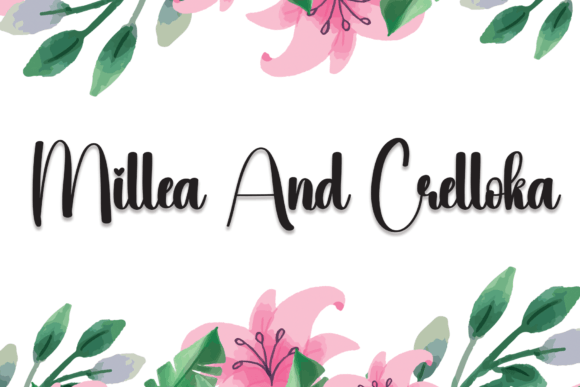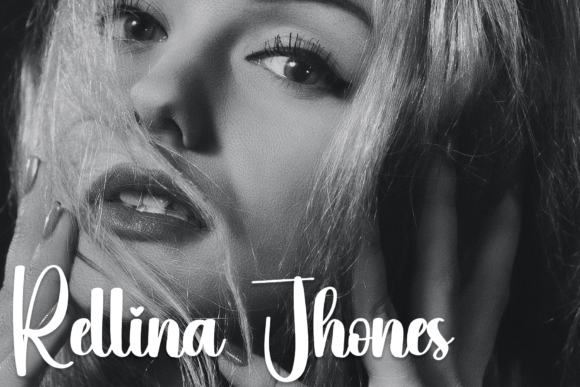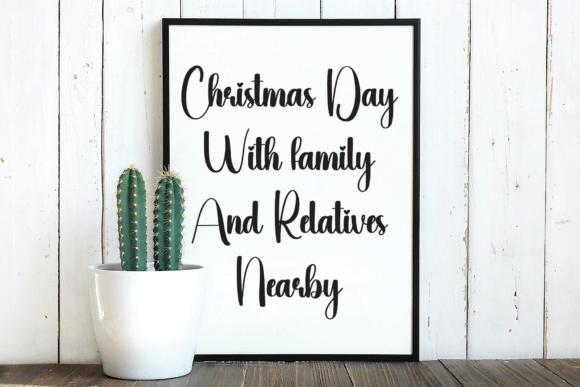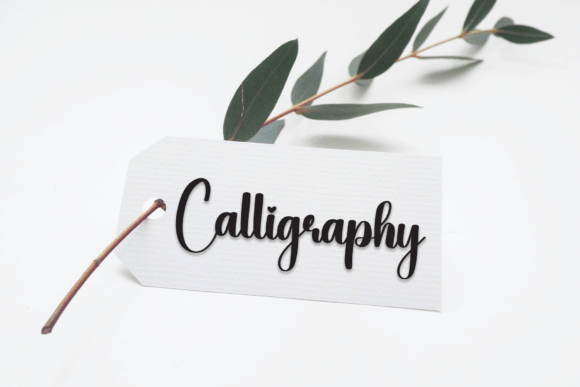
About Celestial Font
Celestial font is an enchanting handwritten script designed to bring a romantic and elegant touch to your creative projects. This versatile typeface shines in a variety of applications, making it an ideal choice for designers looking to add charm and personality to their work. Whether you’re crafting heartfelt greeting cards or striking headlines, Celestial font provides a beautifully flowing style that captures attention and inspires emotion.
Romantic and Elegant Style
The unique allure of Celestial font lies in its graceful curves and delicate strokes. It blends a sense of sophistication with the warmth of handcrafted lettering, creating a style that feels both timeless and fresh. This handwritten script is perfect for projects that call for a personal, heartfelt vibe—whether it’s for wedding invitations, love letters, or branding materials.
Versatile Uses Across Creative Projects
Celestial font works beautifully across a wide range of creative projects. It enhances greeting cards by adding an intimate and romantic atmosphere that resonates with recipients. The font also excels in headlines, lending elegance and style that draw the reader’s eye immediately. In addition, it’s perfect for branding, logos, social media graphics, and even product packaging where a delicate yet distinctive touch is needed.
Handcrafted Appeal with Modern Usability
Crafted with attention to detail, Celestial font offers a handwritten look that is both natural and refined. It comes PUA encoded, meaning you can easily access all glyphs and stylistic alternates. This feature makes it simple to customize your text while maintaining a consistent and professional appearance. Its legibility combined with its artistic flair makes it suitable for both print and digital media.
Why Choose Celestial Font?
Celestial font stands out as a go-to choice for designers who want to evoke romance and elegance through typography. Its versatile nature means it fits seamlessly into numerous design contexts, from classic to contemporary styles. By choosing Celestial, you ensure your projects carry a sophisticated, charming voice that resonates with your audience and leaves a lasting impression.
Incorporate Celestial font into your design toolkit and discover how its enchanting style transforms your work. Whether you’re designing wedding invitations, creating heartfelt greeting cards, or producing captivating branding, Celestial font adds the perfect romantic touch. Elevate your projects with this elegant handwritten script and make every design truly special.